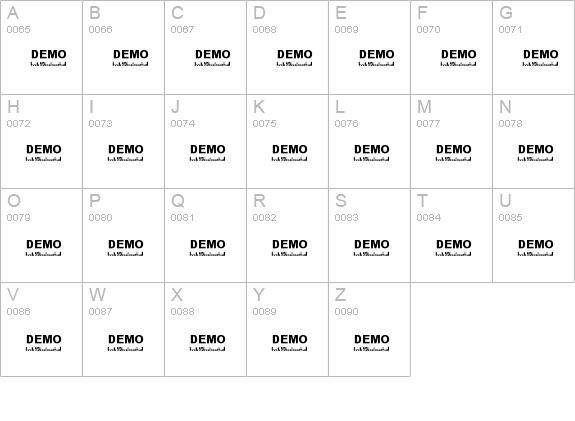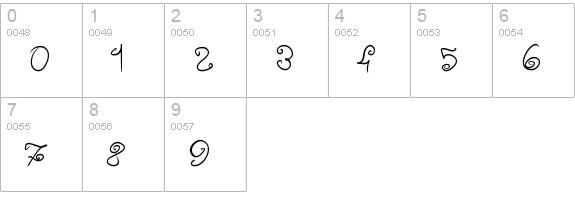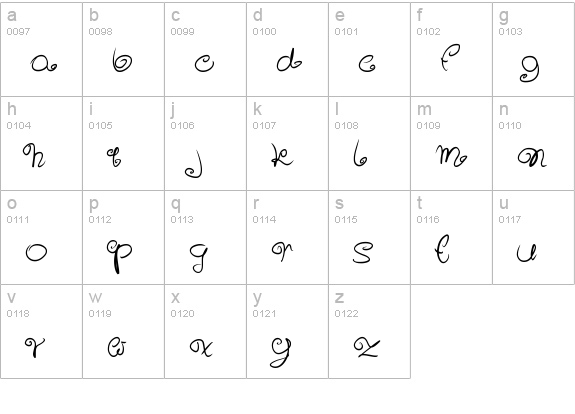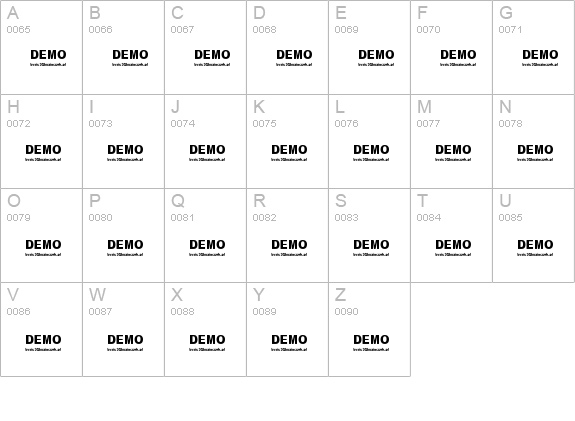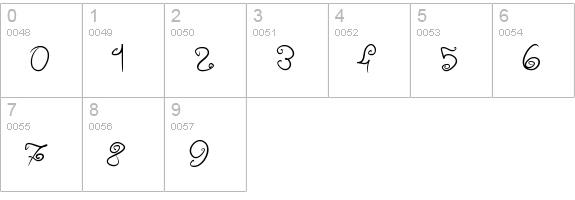
Sweeet! Font Details
Sweeet! font is a delightful and playful typeface that brings a touch of whimsy to any design project. With its charming curves and quirky letterforms, Sweeet! font is perfect for adding a fun and friendly feel to your creations. Whether you're working on a party invitation, a children's book, or a branding project that needs a bit of personality, Sweeet! font is sure to bring a smile to your audience's face. And the best part? Sweeet! font is available for free download at FontsMarket.com! That's right, you can add this charming font to your collection without spending a penny. So why wait? Get Sweeet! font today and start spreading the sweetness in your designs!